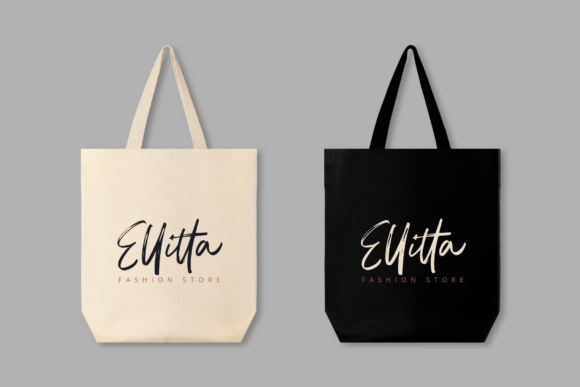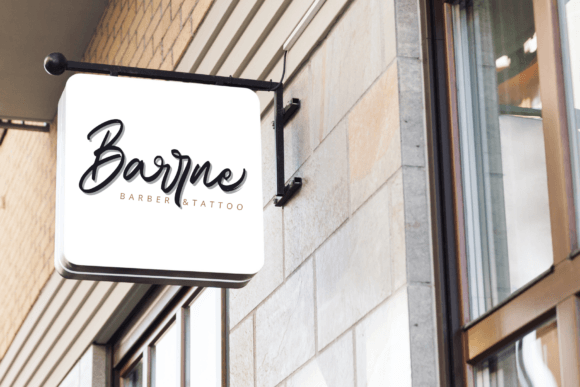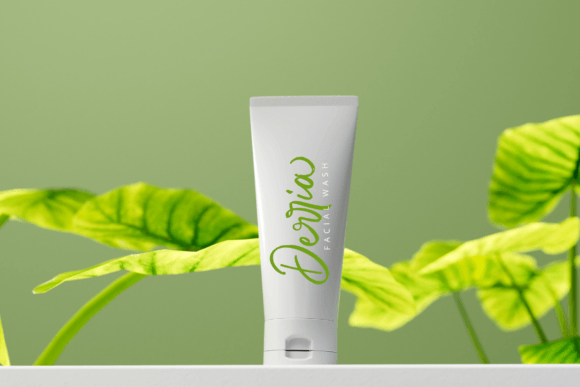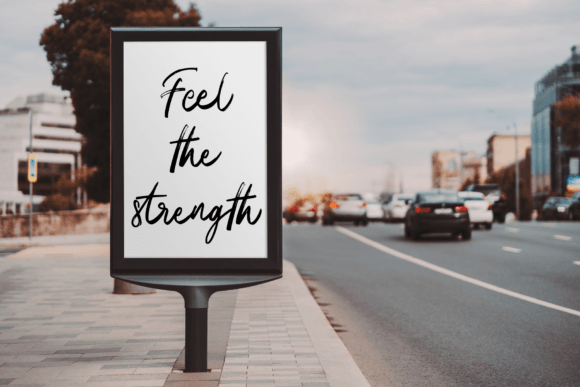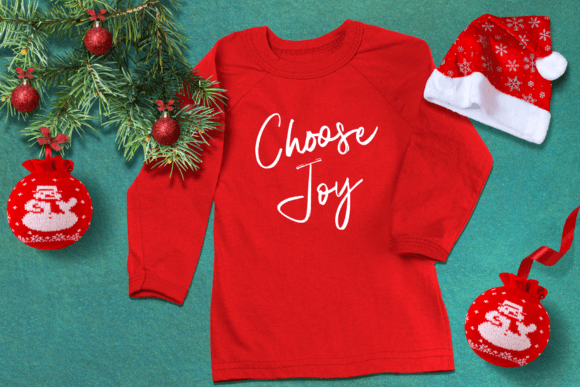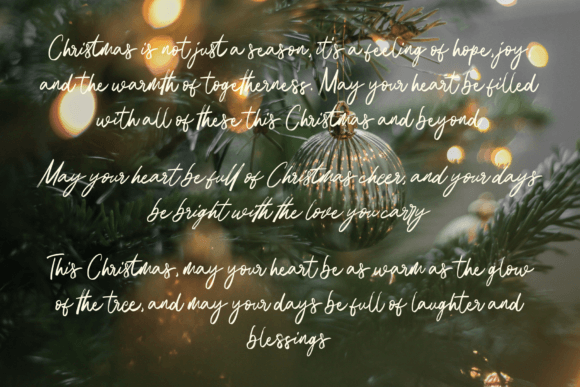
Introduction to Christmas Cherrio Font
As you sit amidst twinkling lights, sipping hot cocoa, and browsing through your favorite design inspiration boards, you stumble upon the perfect font to elevate your holiday projects. The Christmas Cherrio Font is more than just a festive typographic treat; it’s a masterful blend of natural charm and high-quality design.
Whether you’re a seasoned designer or a creative enthusiast, the Christmas Cherrio Font offers a treasure trove of possibilities for your next project. Its organic beauty and timeless appeal make it an invaluable resource for any design endeavor, from free downloads to high-end creative projects. With its transparent background and earthy aesthetic, this font is poised to bring a touch of rustic charm to your designs.
Key Features of Christmas Cherrio Font
- Unique, hand-drawn design with a playful and festive feel, perfect for creative projects and holiday-themed designs.
- Includes a range of characters, including uppercase and lowercase letters, numbers, and punctuation, making it a versatile design resource.
- Features a transparent background, allowing for seamless integration with any design or image.
- Designed at a high resolution of 300 DPI, ensuring that the font remains sharp and clear even when scaled up or down.
- Perfect for use in digital design projects, such as social media graphics, blog posts, and email newsletters, as well as print materials like posters and cards.
Honest Review: Christmas Cherrio Font
I recently came across the Christmas Cherrio Font, and I must say it’s a great addition to my design resource library. As a designer, I’m always on the lookout for high-quality fonts that can elevate my creative projects. The Christmas Cherrio Font delivers just that.
- ✨ The design is playful and festive, perfect for holiday-themed projects or social media graphics.
- ✨ The transparent background option allows for easy integration into various design elements.
- ⚠️ The font may not be suitable for professional or formal projects, as it has a more casual tone.
- ⚠️ Some users may find the font too bold or eye-catching, depending on their design style.
Overall, I’m impressed with the Christmas Cherrio Font. It’s a great design resource for creative projects, and its free download option makes it an attractive choice. While it may not be suitable for every project, it’s definitely worth considering for holiday-themed or social media designs.
Designing with Christmas Cherrio Font
The Christmas Cherrio Font is a unique and festive design resource that’s perfect for your holiday-themed creative project. With its high quality and transparent background, you can easily integrate it into your design. To get started, download the font for free and explore its various uses.
Tips for Getting the Most Out of Christmas Cherrio Font
To get the most out of Christmas Cherrio Font, experiment with different font sizes, colors, and combinations to create a unique and festive look. You can also pair the font with other design elements, such as images, shapes, or patterns, to create a cohesive and engaging design.
Common Use Cases for Christmas Cherrio Font
Some common use cases for Christmas Cherrio Font include: creating holiday-themed social media graphics, designing festive invitations or cards, and creating custom graphics or logos for holiday-themed products or services.